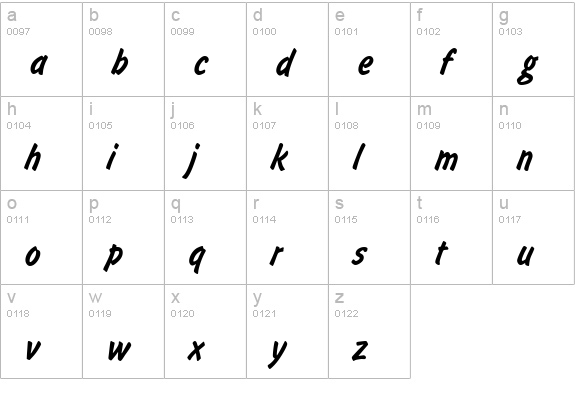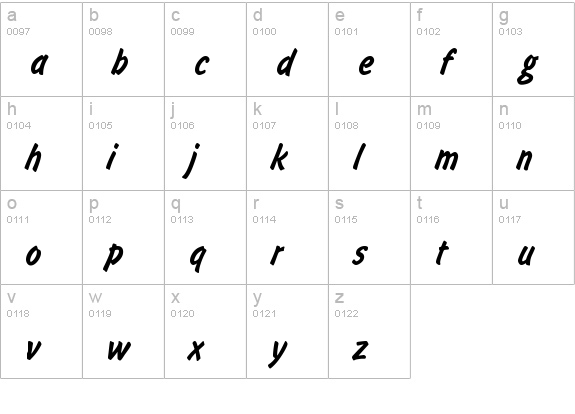
Falcon-Light-Regular is a refined, elegant variant in the Falcon typeface family \xE2\x80\x94 well suited to elegant body text, refined sub-headings, and luxury branding.
Falcon-Light-Regular is a sleek and modern font with a touch of elegance. Its clean lines and balanced proportions make it perfect for a wide range of design projects, from branding to editorial. The font exudes a sense of sophistication and professionalism, making it ideal for creating a polished and refined look. What sets Falcon-Light-Regular apart is not just its impeccable design, but also the fact that it is available for free download at FontsMarket.com. This means that you can easily access this high-quality font without having to spend a dime, making it a valuable resource for designers, students, and anyone else looking to elevate their projects with a touch of class. Whether you are working on a logo, website, poster, or any other design project, Falcon-Light-Regular is sure to bring a touch of style and sophistication to your work. Download it for free today and see for yourself the impact this font can have on your designs.